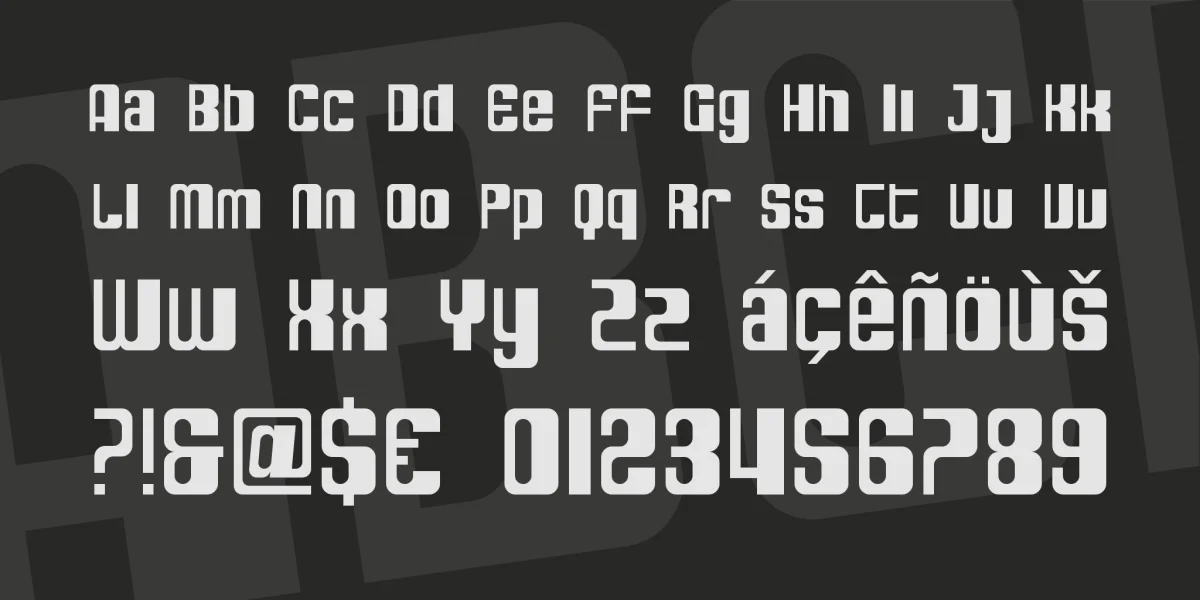
A retro-deco-techno-fun-lovin' font with style, SF DecoTechno contains lowercase and uppercase letters, numbers, punctuation, and accented characters.